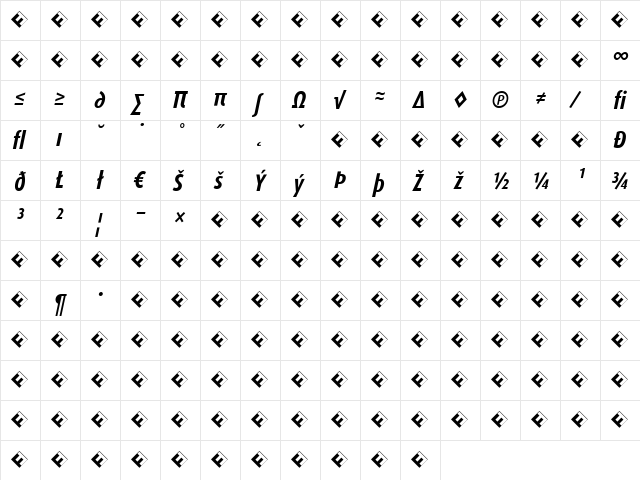
DaxCondensed-BoldItalicExp ItalicBold Font Preview
| Foundry | Hans Reichel, published by Fontshop International for the FontFont library |
Design Context for DaxCondensed-BoldItalicExp Typeface
DaxCondensed-BoldItalicExp is a composed and adaptable typeface that performs quietly and consistently across a wide range of design contexts. Its italic angle brings a sense of urgency and motion to the letterforms. Its bold stroke weight gives it real presence on the page. The condensed width makes it efficient for tight spaces without sacrificing legibility.